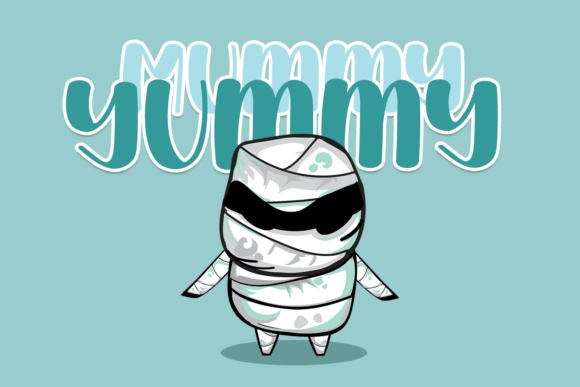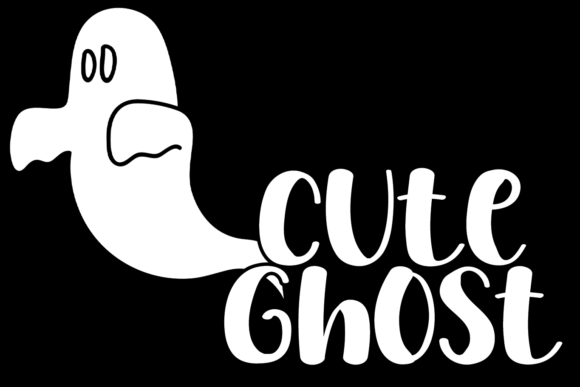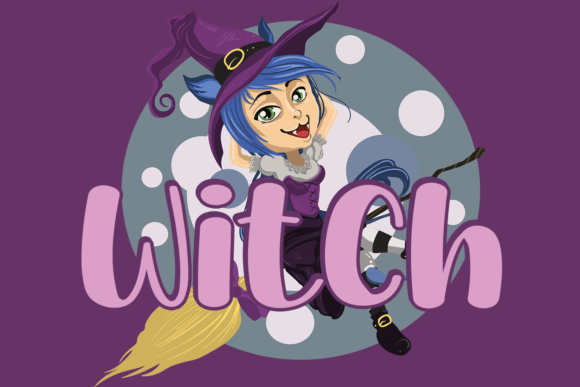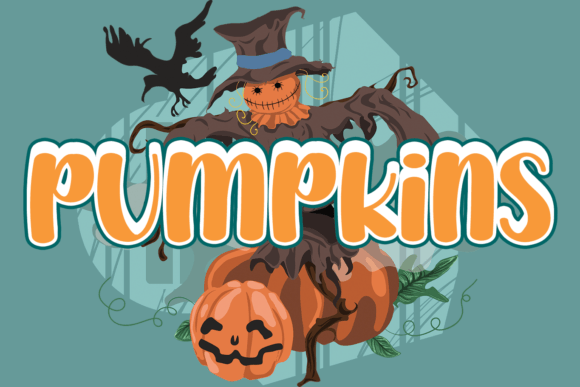
Happy Halloween Font: Add a Spooky Chic Touch to Your Designs
Are you looking for a font that will add a touch of quirky elegance to your designs this Halloween season? Look no further than the Happy Halloween Font! This charming lettered display font is perfect for designers and crafters who want to create eye-catching projects that stand out from the crowd.
What Makes Happy Halloween Font So Special?
Happy Halloween Font is a unique and stylish font that is sure to add a spooky chic touch to any project. Its quirky and elegant design makes it perfect for a wide range of applications, from Halloween-themed party invitations and decorations to craft projects and digital designs.
One of the best things about Happy Halloween Font is its versatility. It can easily be matched to an incredibly large set of projects, making it a great addition to any designer’s toolkit. Whether you’re creating a spooky Halloween-themed design or a more general autumnal or fall-themed project, this font is sure to add a touch of elegance and sophistication.
How to Use Happy Halloween Font in Your Designs
Why Designers and Crafters Love Happy Halloween Font
- Unique and Quirky Design: Happy Halloween Font has a unique and quirky design that sets it apart from other fonts.
- Elegant and Sophisticated: Despite its quirky design, Happy Halloween Font is also elegant and sophisticated, making it perfect for a wide range of applications.
- Versatile: Happy Halloween Font is versatile and can be used in a wide range of projects, from Halloween-themed designs to more general autumnal or fall-themed projects.
Tips and Tricks for Using Happy Halloween Font
Happy Halloween Font is a quirky and chic lettered display font that is perfect for designers and crafters who want to add a touch of spooky elegance to their designs. Its unique and elegant design makes it perfect for a wide range of applications, from Halloween-themed party invitations and decorations to craft projects and digital designs. With its ease of use and versatility, Happy Halloween Font is a great addition to any designer’s toolkit.